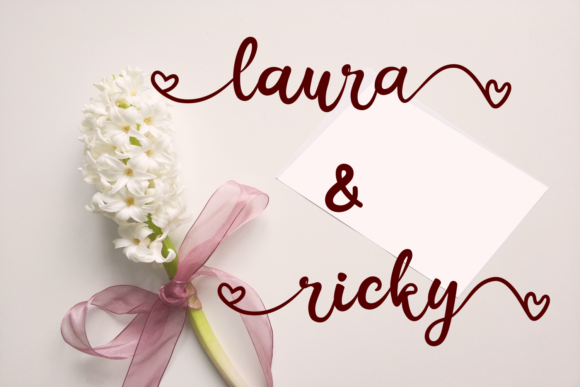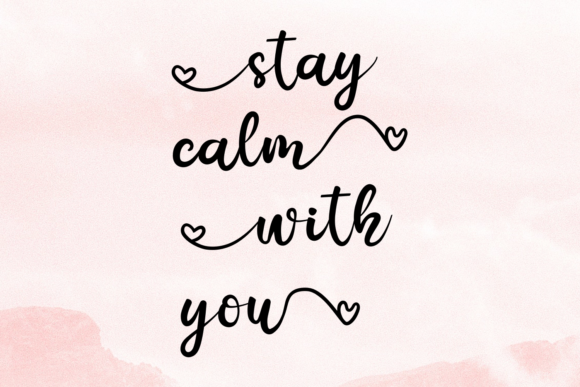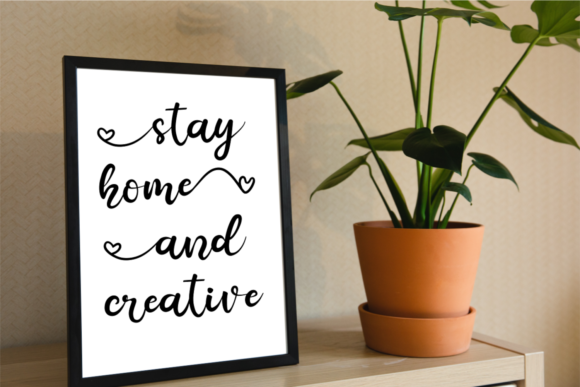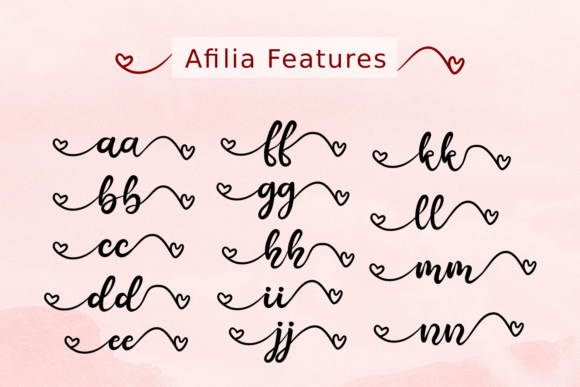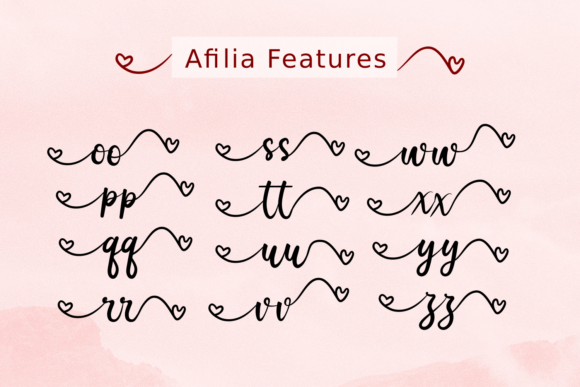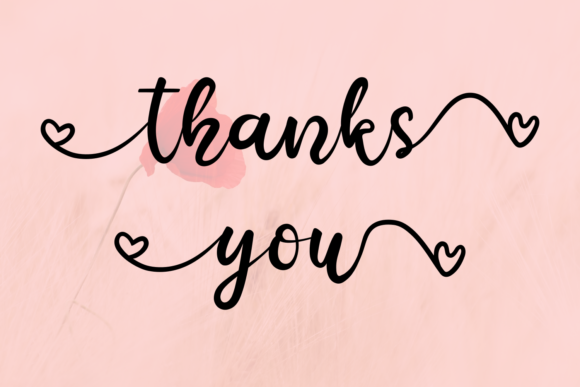
Afilia Font: Elevate Your Designs with Elegance and Delicacy
In the world of typography, a font can make or break a design. For crafty enthusiasts and designers looking for that perfect touch of elegance and delicacy, the Afilia Font is a game-changer. This beautiful, handwritten font is characterized by its sweet and delicate swashes, making it an ideal choice for a wide range of creative projects.
The Charm of Afilia Font
Afilia is more than just a font; it’s an expression of style and sophistication. Its elegant and dainty appearance is perfect for adding a touch of refinement to any design. Whether you’re working on letterheads, titles, stationery, or any other crafty project, Afilia Font brings a level of class and poise that’s hard to match.
Key Features of Afilia Font
- Elegant and Dainty: Afilia’s overall look and feel are characterized by its elegant strokes and dainty appearance, making it perfect for designs that require a touch of sophistication.
- Sweet and Delicate Swashes: The font features beautiful swashes that add a dynamic and artistic touch to your text, making it stand out.
- Versatility: Afilia Font is incredibly versatile, suitable for a wide range of projects from formal letterheads to creative stationery and titles.
- Handwritten: The font’s handwritten nature gives it a personal and unique feel, perfect for designs that aim to connect on a more intimate level.
Uses of Afilia Font
The versatility of Afilia Font makes it suitable for various applications. Here are some of the top uses for this beautiful font:
- Letterheads and Business Cards: Add a professional yet personal touch to your business correspondence with Afilia’s elegant look.
- Stationery: Whether it’s notebooks, journals, or greeting cards, Afilia Font can elevate your stationery designs with its delicate and sweet aesthetic.
- Titles and Headings: Use Afilia for titles and headings in your projects to grab attention with its unique and elegant swashes.
- Branding: For brands looking to convey a sense of elegance and delicacy, Afilia Font can be a valuable part of their typography.
Why Designers and Crafters Love Afilia Font
Designers and crafters are always on the lookout for fonts that can help their projects stand out. Afilia Font has quickly become a favorite for several reasons:
- Unique Look: In a sea of generic fonts, Afilia offers a unique and distinctive look that can set your designs apart.
- Easy to Read: Despite its elegant and delicate nature, Afilia Font remains highly legible, making it practical for a variety of uses.
- Customizable: With its range of swashes and ligatures, Afilia offers plenty of opportunities for customization to fit your project’s specific needs.
Afilia Font is a beautiful addition to any designer’s or crafter’s toolkit. Its elegant and dainty appearance, combined with its sweet and delicate swashes, makes it the perfect choice for those looking to add a touch of sophistication and elegance to their projects. Whether you’re working on formal documents, creative stationery, or eye-catching titles, Afilia Font is sure to elevate your designs to new heights.